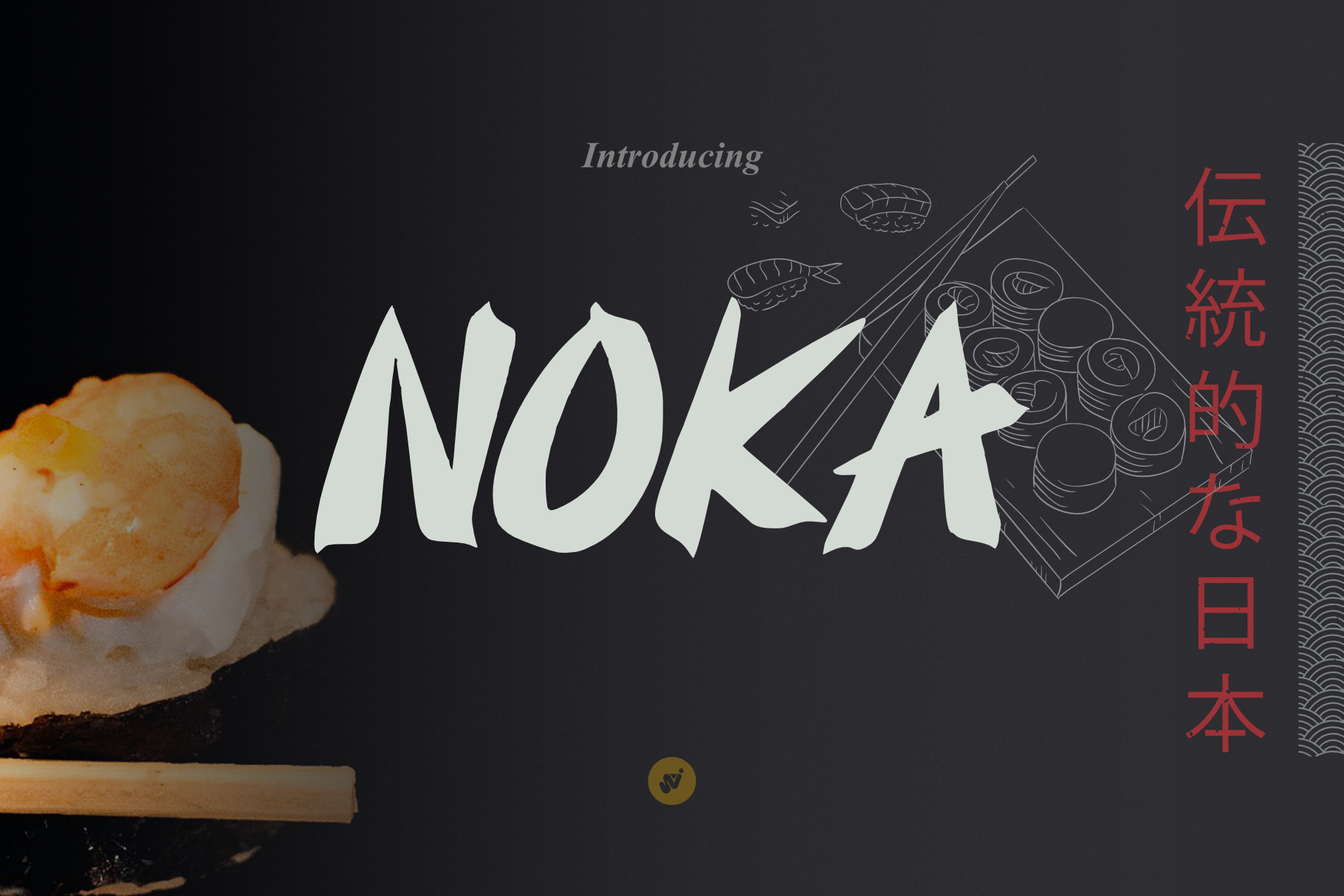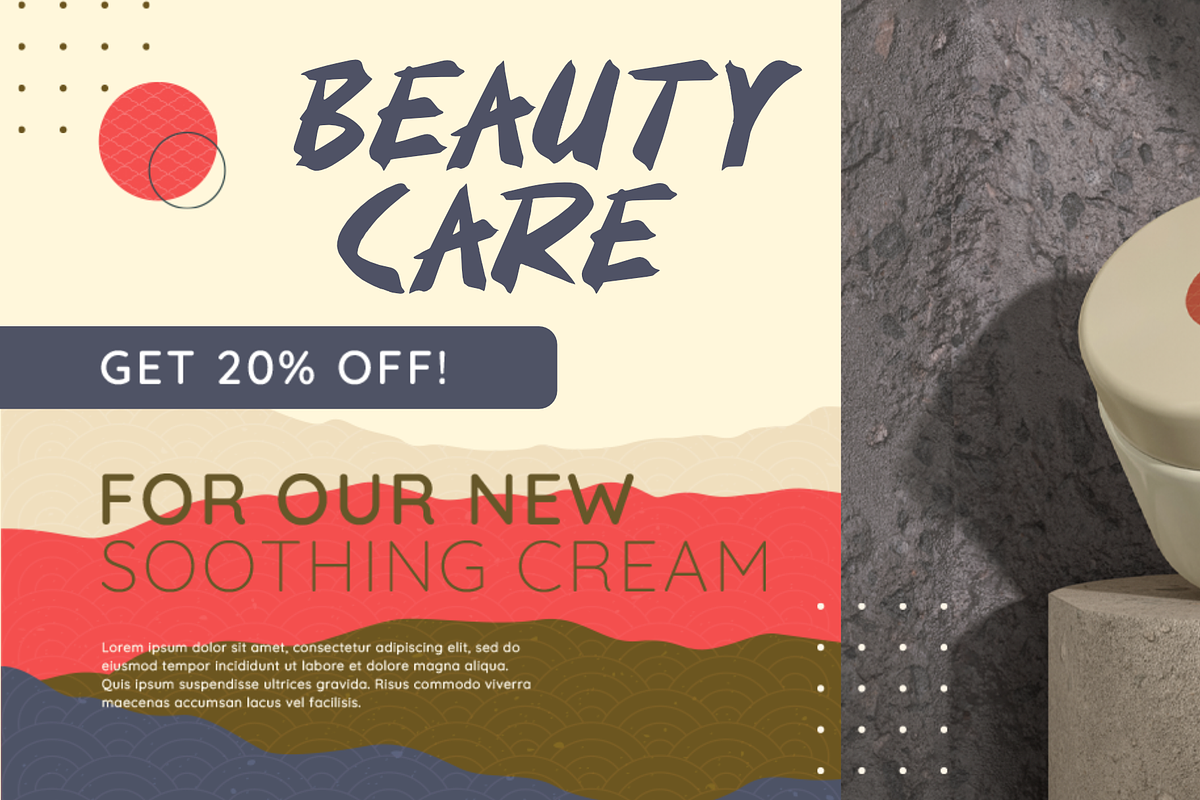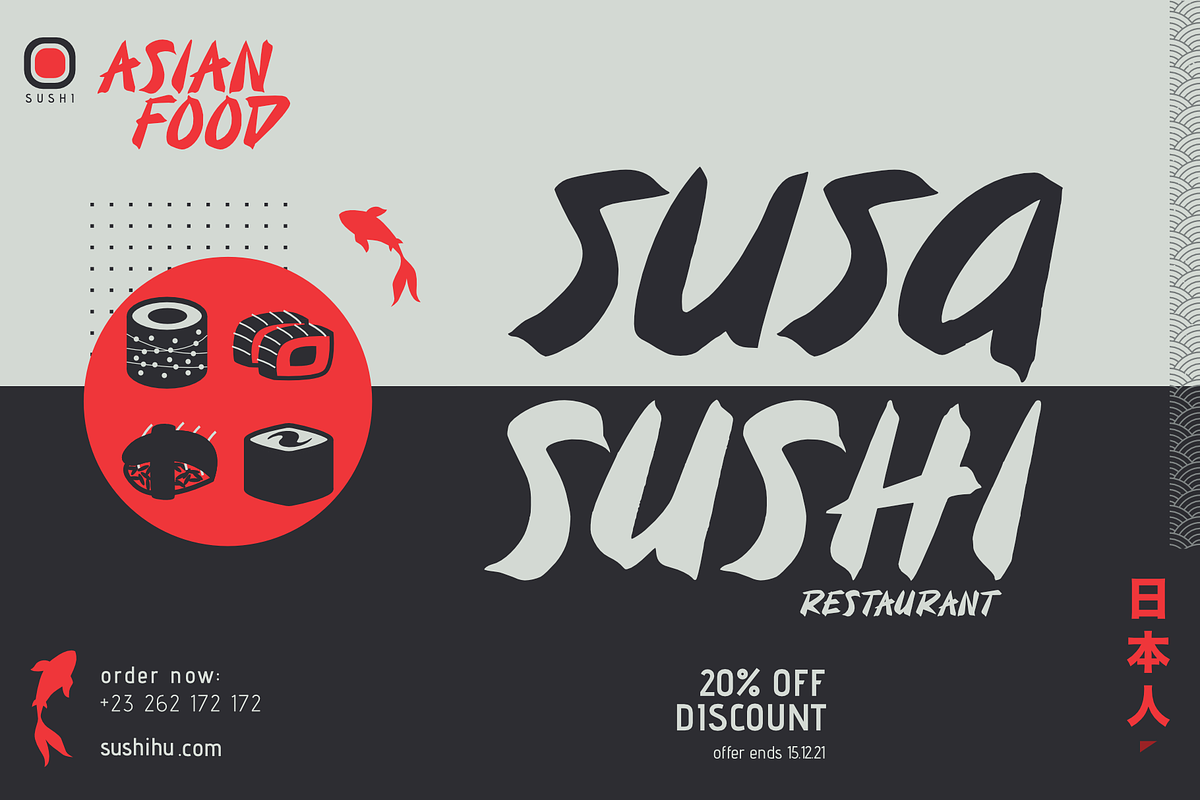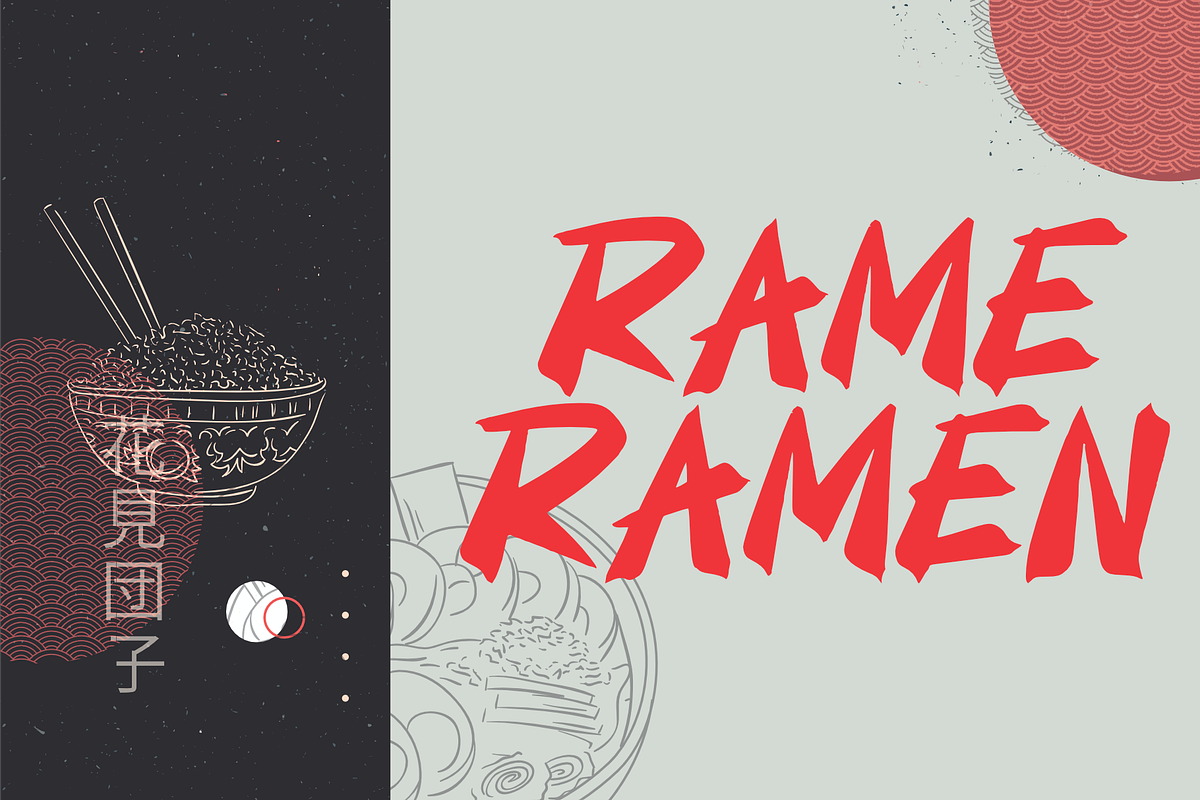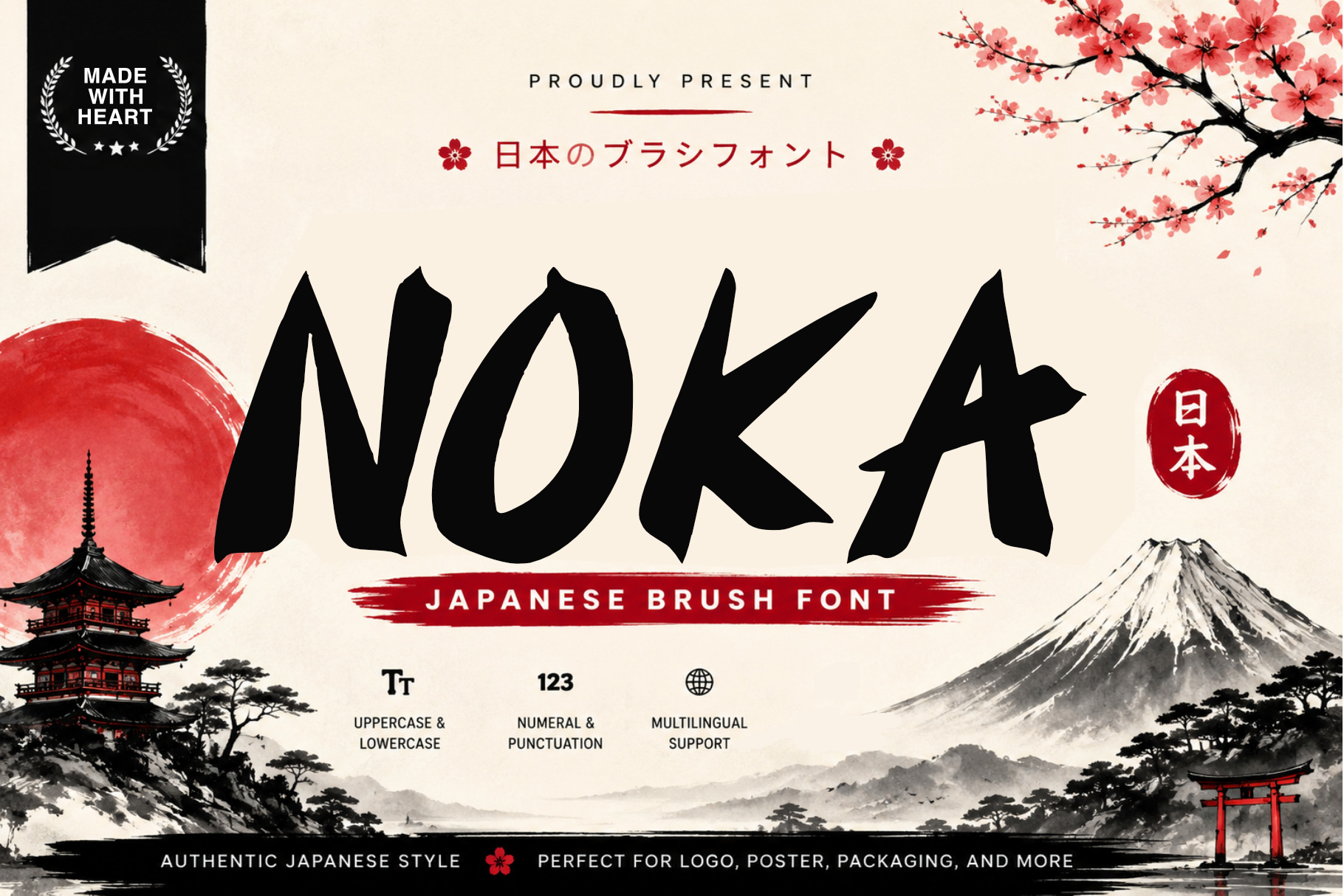
Noka - Brush Font Japan Style
This brush font is inspired by the traditional Japanese calligraphy art (shodō), presenting a strong, dynamic, and authentic impression. The thick and expressive brushstroke style reflects the spirit of Japanese culture full of character and courage.
Suitable for:
Japanese restaurant logo
Japanese souvenir shop
Japanese themed product branding
Japanese cultural event poster
With a bold and handwritten letter shape, this font is able to provide a unique and instantly recognizable visual identity, reinforcing oriental and traditional nuances but still modern.